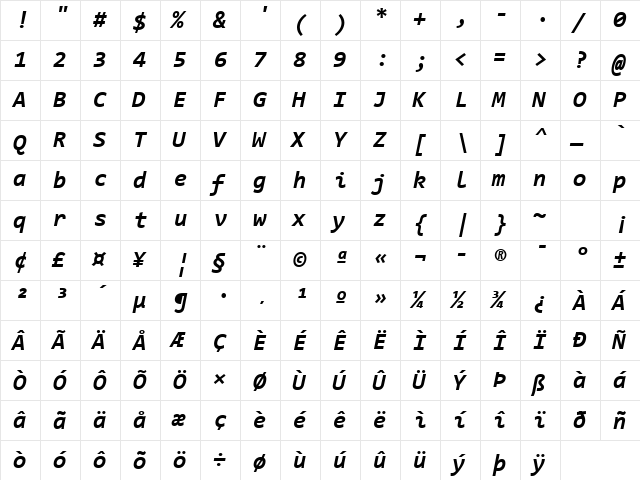
Consolas Bold Italic Font Preview
Consolas Bold Italic
Consolas Bold Italic Font Details
| Foundry | Microsoft Corporation |
| Designer | Luc(as) de Groot |
Design Context for Consolas Typeface
Consolas takes a measured approach to typography — its balanced proportions and neutral character make it a reliable workhorse for both digital and print work. The dynamic lean of this cut emphasises speed and emphasis in any layout. The heavy weight commands attention and anchors typographic hierarchies.